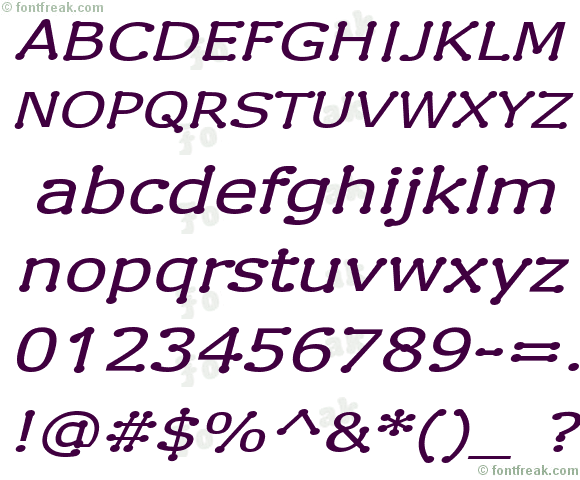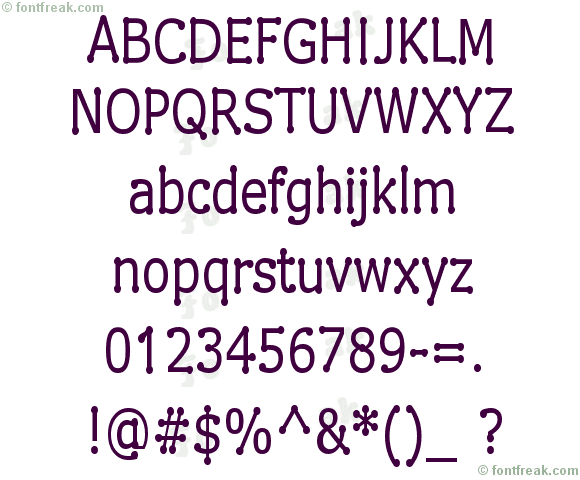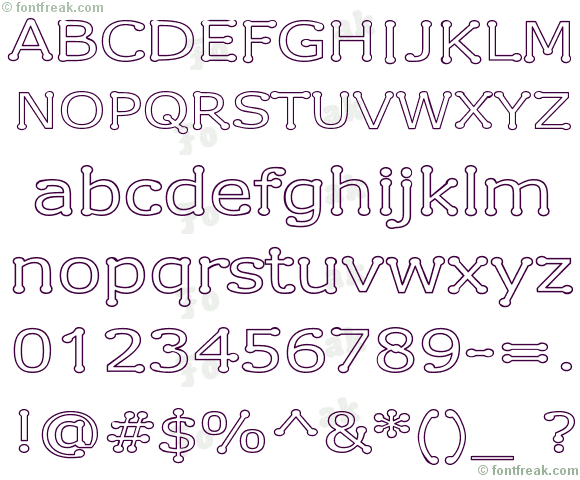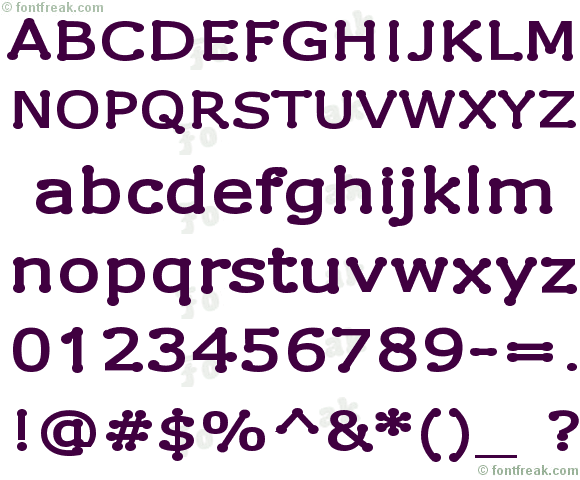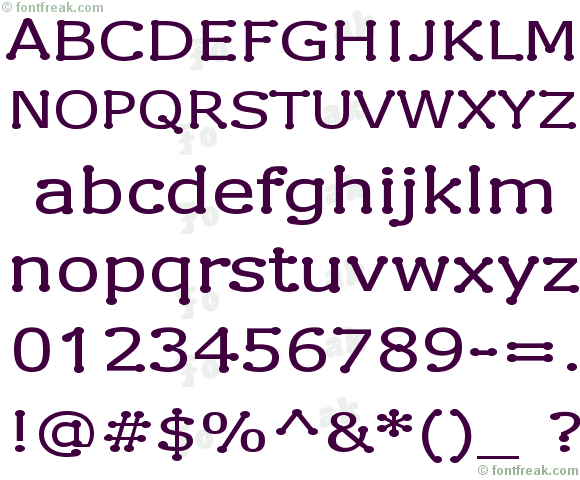
Drummon by Gemfonts is a distinctive display font that embodies a unique blend of modernity and playfulness. This freeware font features a narrow, semibold design, characterized by its bold strokes and italic style, which gives it a dynamic flair. The outline effect adds depth and character, making it visually striking in various applications. The font exhibits moderate contrast in stroke weight, providing a balanced appearance that enhances readability while still being eye-catching.
Drummon is an excellent choice for a variety of creative projects. Its stylish aesthetic makes it ideal for wedding invitations, where it can convey elegance and charm. Additionally, it works wonderfully for movie posters, adding a touch of excitement and intrigue to the design. Restaurant menus can also benefit from Drummon's unique outline, making dish names stand out and enticing patrons. This font is perfect for marketing materials, allowing small business owners to create memorable branding that resonates with their audience. Content creators will find Drummon to be a versatile asset, suitable for both digital and print media.
The target audience for Drummon includes graphic designers looking for fresh and innovative typography, as well as small business owners seeking to elevate their branding. This font is also ideal for content creators who want to add a distinctive touch to their projects, ensuring their work captures attention.
What sets the Drummon font apart is its ability to blend functionality with artistic flair. It stands out not only for its unique design but also for its versatility across various mediums. With the Drummon font free download, you can easily incorporate this striking typeface into your next project, giving it a memorable and professional edge.